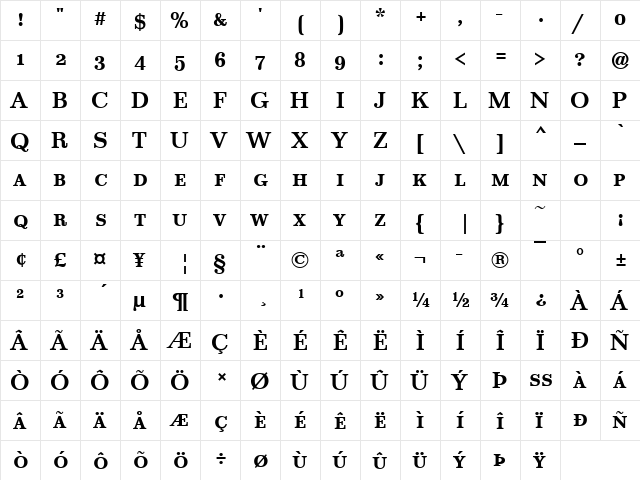
Mariam Becker Caps Med Regular
Design Context for Mariam Becker Caps Med Typeface
Mariam Becker Caps Med takes a measured approach to typography — its balanced proportions and neutral character make it a reliable workhorse for both digital and print work.